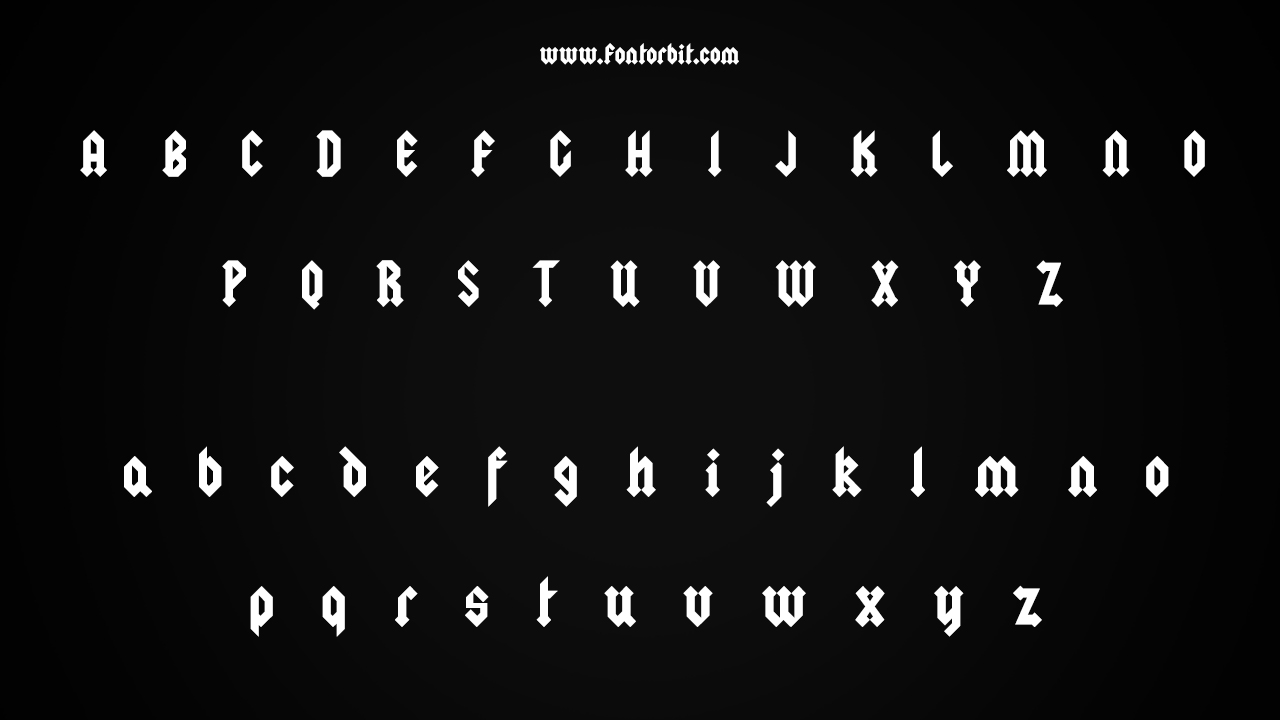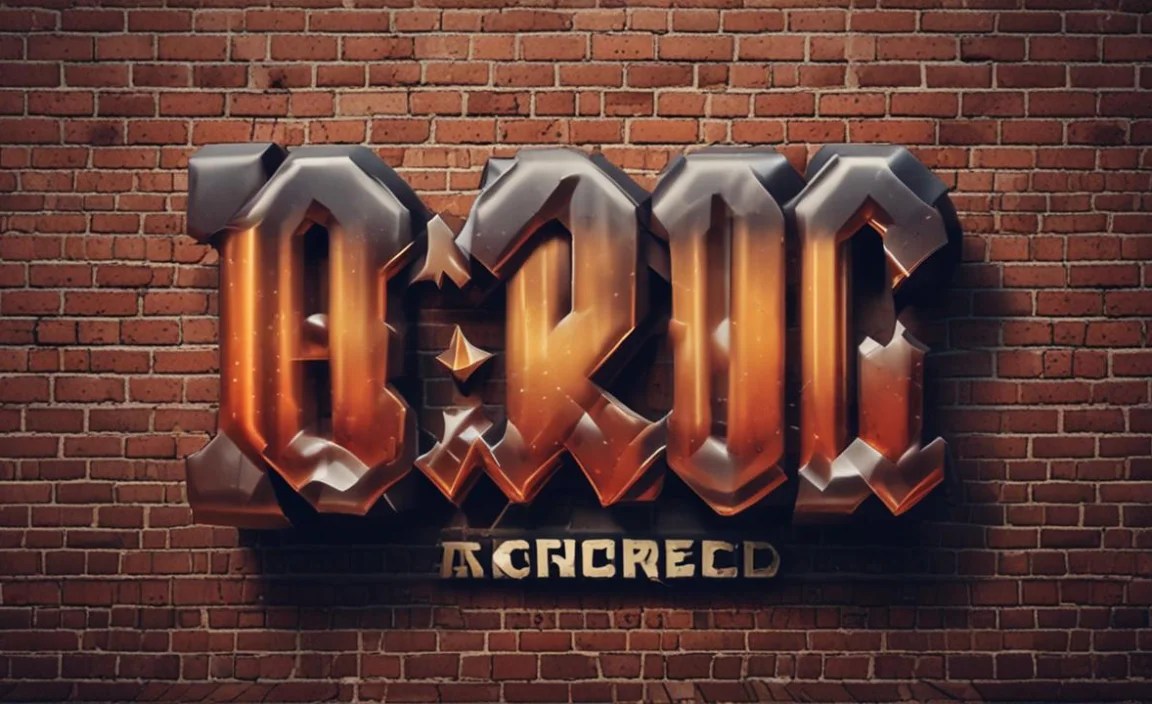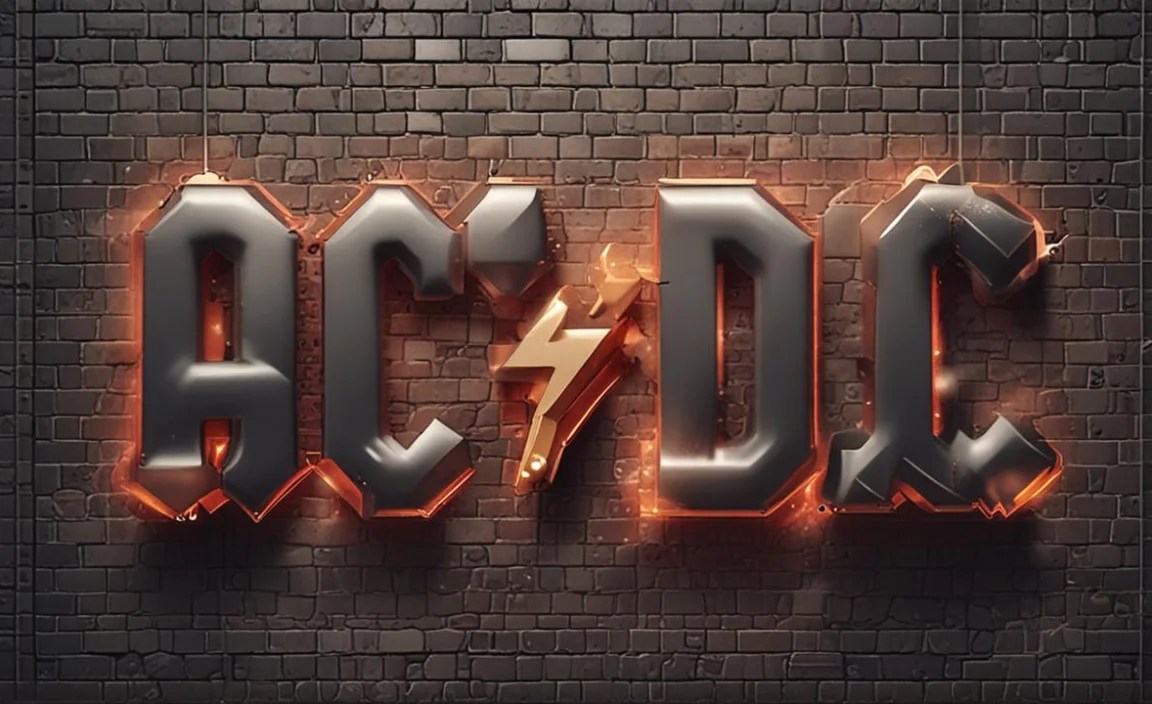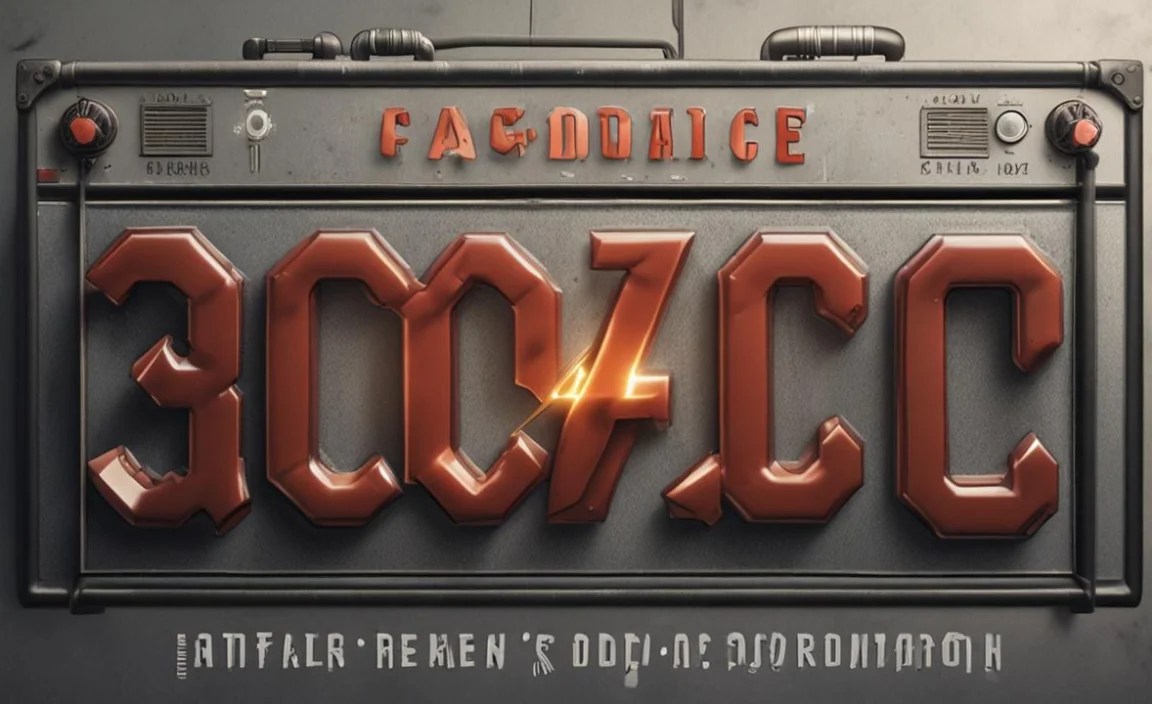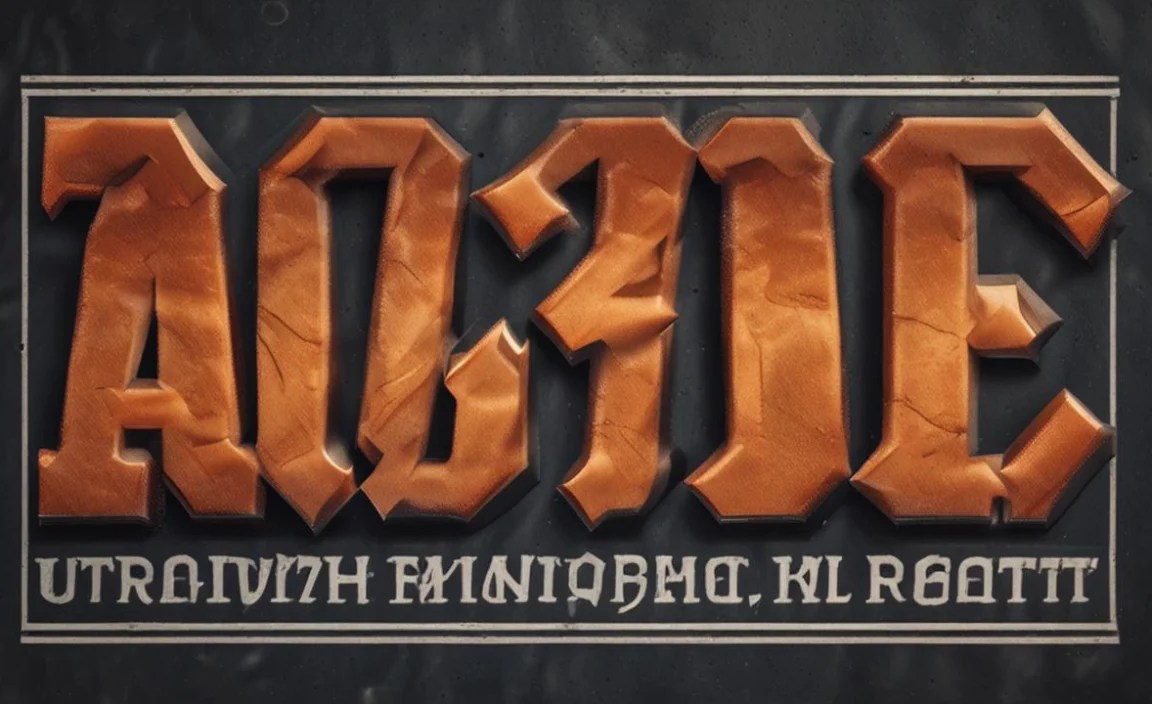
The AC/DC font is iconic and closely associated with the Australian hard rock band AC/DC, formed in November 1973. This font has evolved with the band’s iconic logo over the years.
From the geometric stencil of their debut albums to the gothic style of High Voltage (1976) and the playful script of Dirty Deeds Done Dirt Cheap, each version reflects a distinct era.
Types In The AC/DC Font Family
a. Squealer Old version
b. Squealer Embossed
c. Squealer Font
The AC/DC font is perfect for projects that need to convey a powerful, rock-and-roll vibe. Its bold and distinctive appearance is ideal for music-related branding, concert posters, merchandise, album covers, and promotional materials.
The Squealer Font, inspired by the iconic AC/DC logo, captures the bold, blackletter style associated with the band. Ideal for music branding, concert promotions, and rock-themed designs, this font brings a punchy, hard-rock edge to your projects.
1.What Is The AC/DC Font?
The AC/DC Font, notably the Squealer Font, reflects the bold, blackletter style of the AC/DC logo. It is associated with the iconic rock band and its powerful branding.
2.Who Designed The AC/DC Font?
Gerard Huerta designed the iconic AC/DC logo featured in the Squealer Font. The font captures the band’s bold and energetic style.
3.What Are The Key Features Of The AC/DC Font?
The font features bold, blackletter letterforms with a lightning bolt symbol, embodying the powerful and hard-rock essence of the AC/DC logo.
4.How To Use AC/DC Font In Branding?
Utilize it for music branding, concert posters, merchandise, and album covers to evoke the distinctive rock-and-roll energy of the AC/DC style.
5.What Are The Alternatives To The AC/DC Font?
Similar fonts include Glaser Stencil, Freehand 575, Shatter, and Thunderstrike, which offer bold and impactful aesthetics akin to the AC/DC branding.